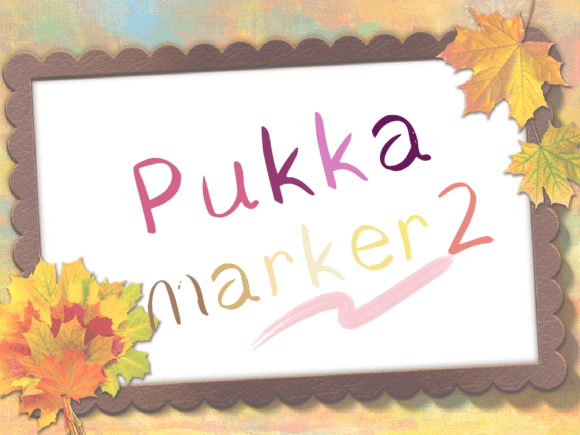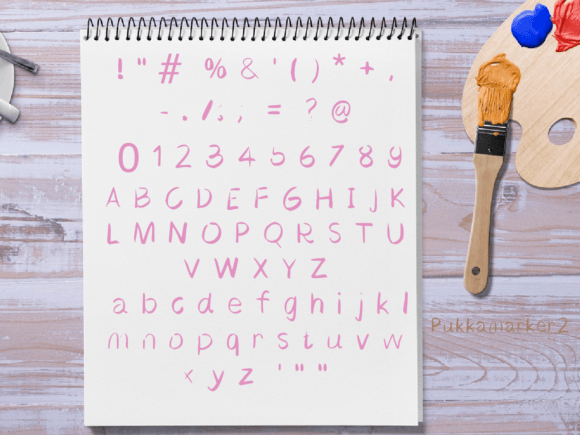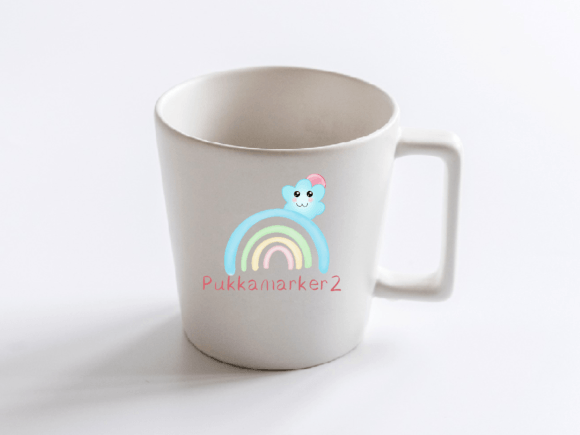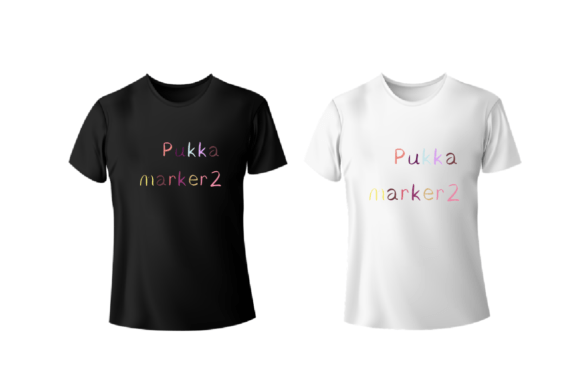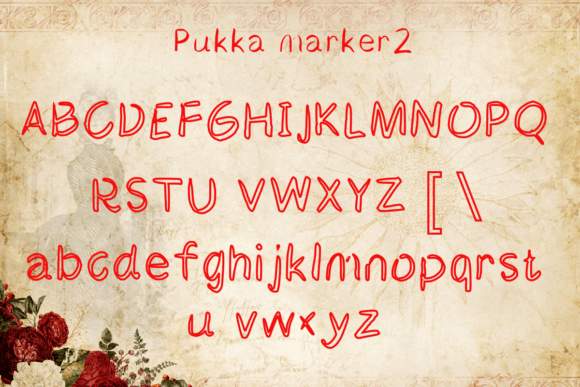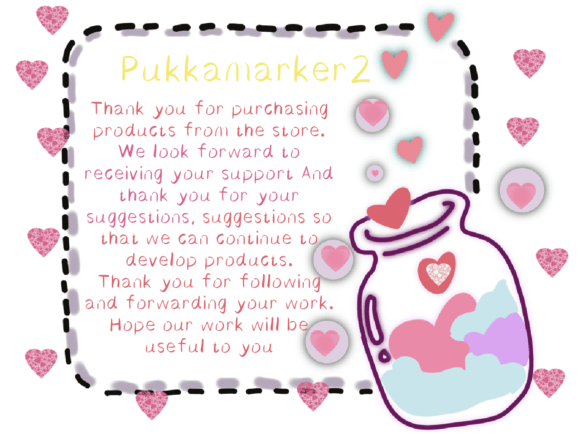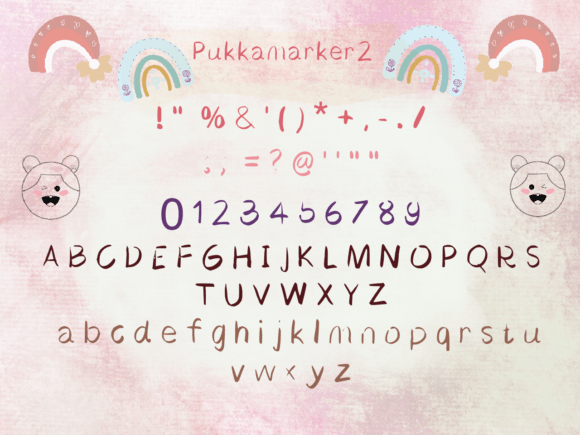
Pukkamarker2 Font
About Pukkamarker2 Font
Introducing Pukkamarker2, a handwritten font crafted with the expressiveness of a marker pen. Perfect for adding a personal touch to your letters, greeting card designs, wedding invitations, and more. Elevate your creative projects and infuse them with a joyful and distinct charm using this delightful font!
Pukkamarker2 captures the organic and free-flowing qualities of a marker pen, giving your text a genuine and handcrafted feel. Whether you’re aiming for a casual and friendly tone in your letters or want to bring a touch of joy to your wedding cards, this font is designed to make your creative projects stand out.
Imagine the playful strokes of Pukkamarker2 adorning your greeting cards, creating a warm and inviting atmosphere. Its handwritten style adds character and authenticity, making it an excellent choice for projects that require a personal and human touch.
Pukkamarker2 is more than just a font; it’s a tool to make your creative endeavors look different and distinctive. Embrace its joyful and informal vibe to breathe life into your designs, ensuring that they leave a lasting impression.
Add Pukkamarker2 to your font collection, and let its handwritten charm bring a sense of spontaneity and creativity to your letters, cards, and various creative projects. Enjoy the uniqueness and joy it brings to your designs as you explore the possibilities with this lively font!